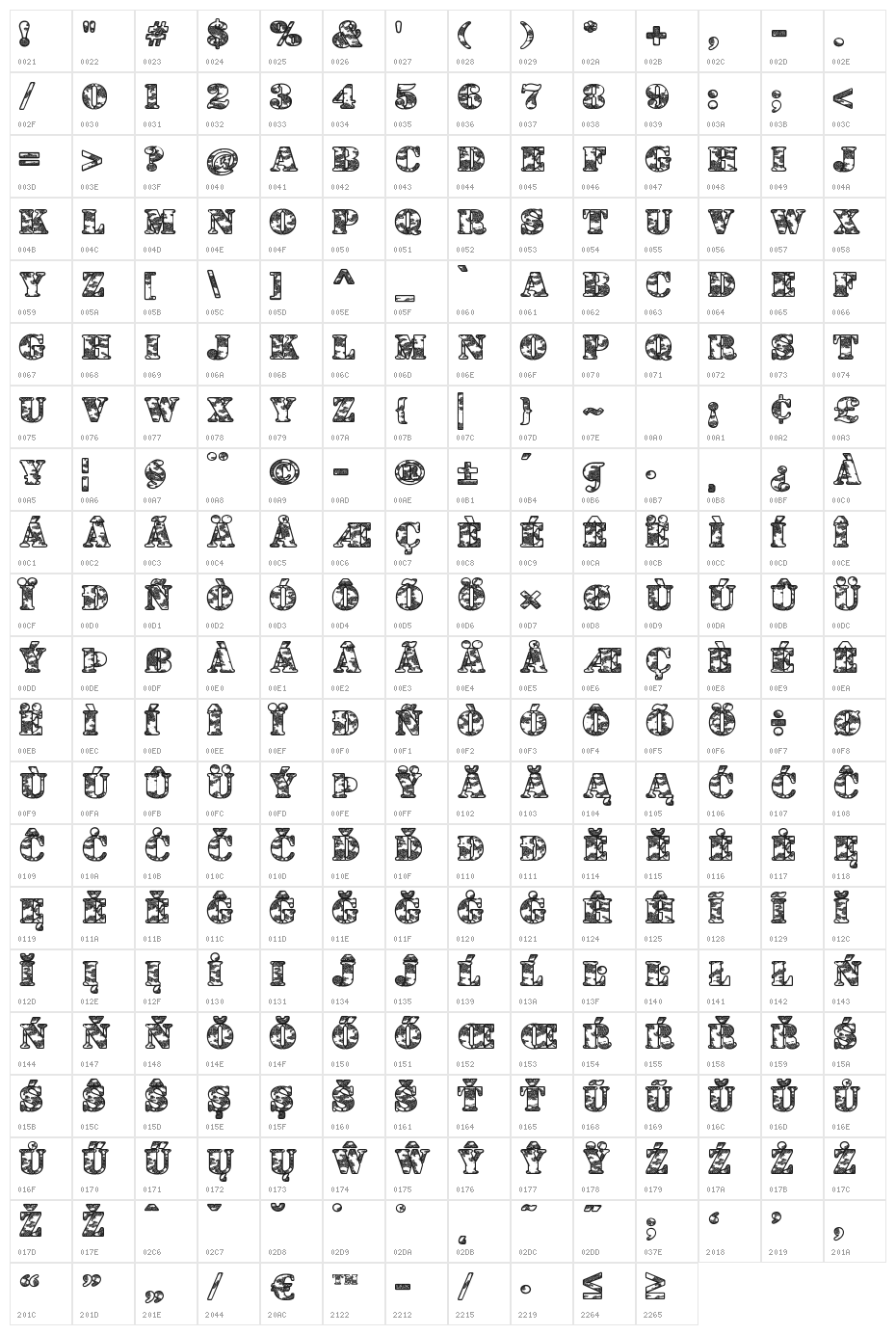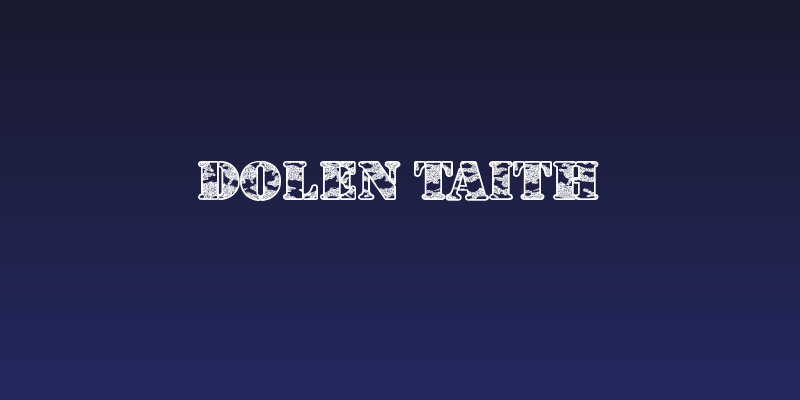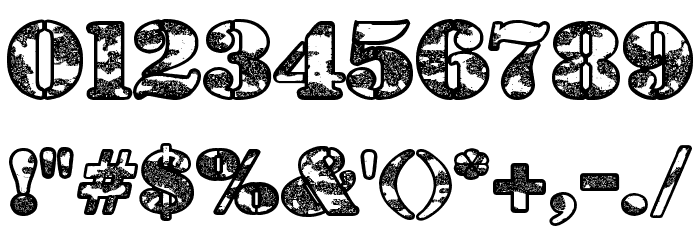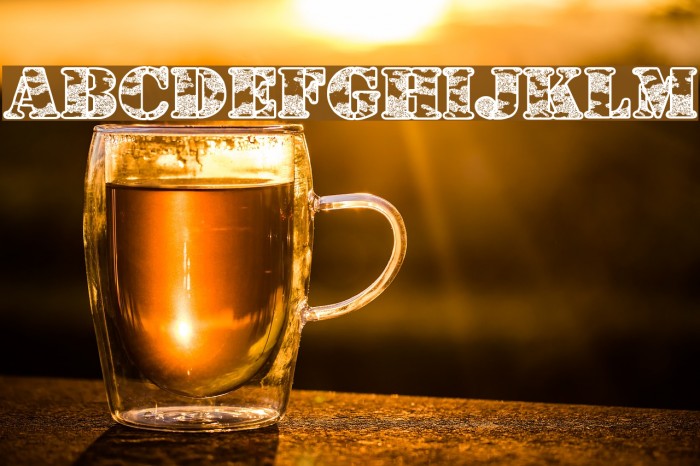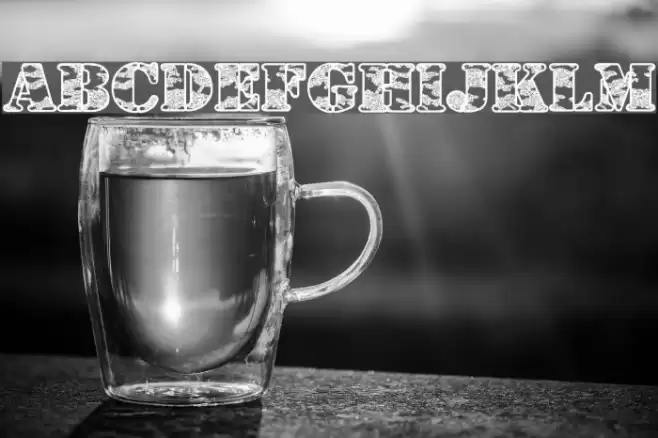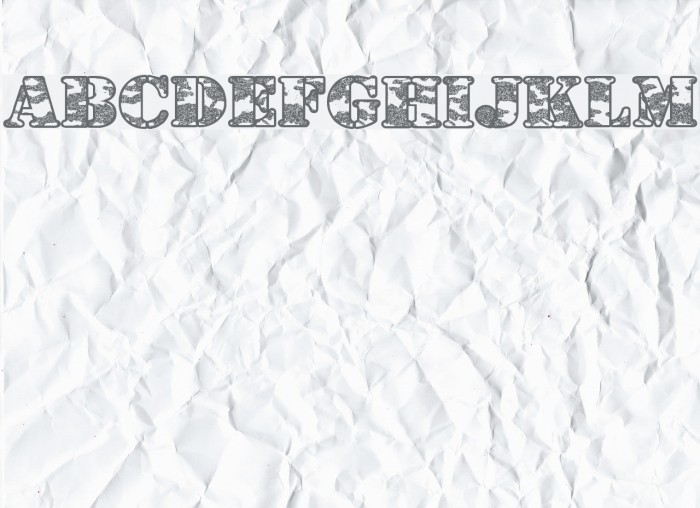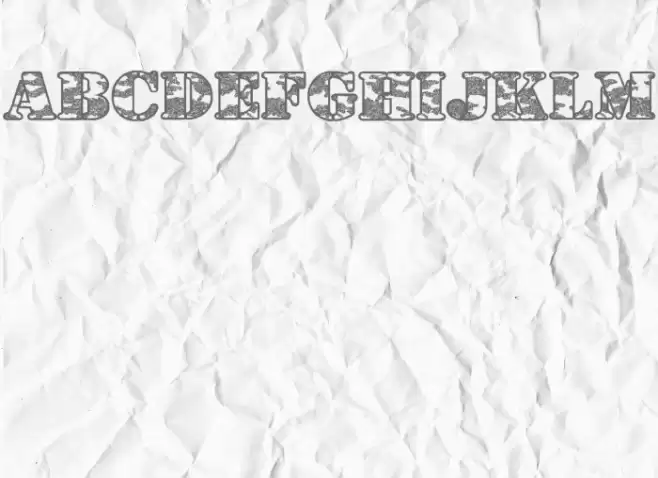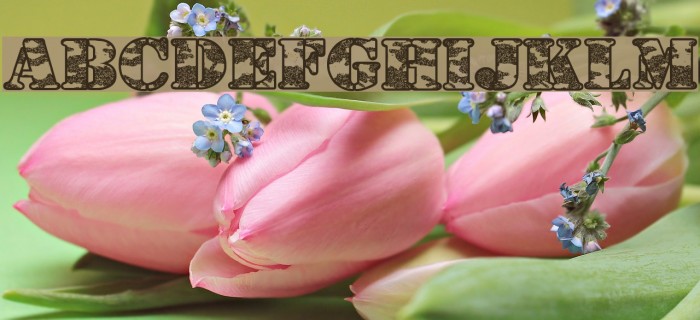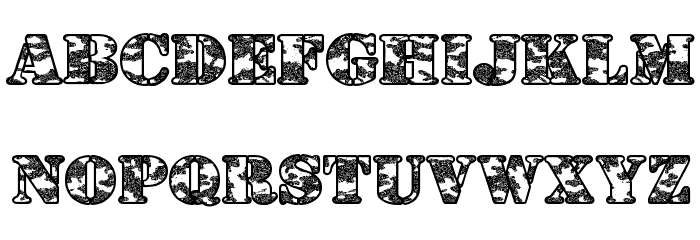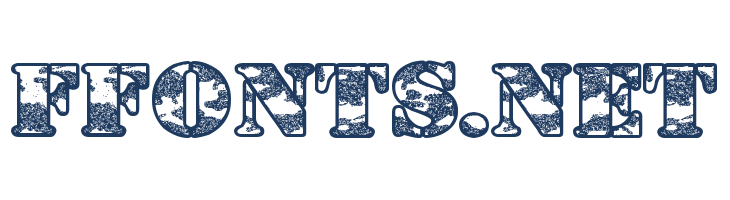
Dolen Taith Font
This font features a bold, distressed style with a textured appearance that gives it a rugged, vintage feel. The characters are heavily stylized with a decorative pattern that resembles worn or weathered surfaces, adding a unique and eye-catching element to the design. The uppercase and lowercase letters maintain a consistent design, while the numbers and special characters follow the same distressed theme, ensuring a cohesive look across all text elements. This font is ideal for projects that require a strong, impactful visual statement.
| Use Case | Logos, Posters, Apparel Design |
| Proposed Projects | Ideal for vintage-themed posters, logos, apparel design, and branding materials that require a bold, eye-catching typeface. |